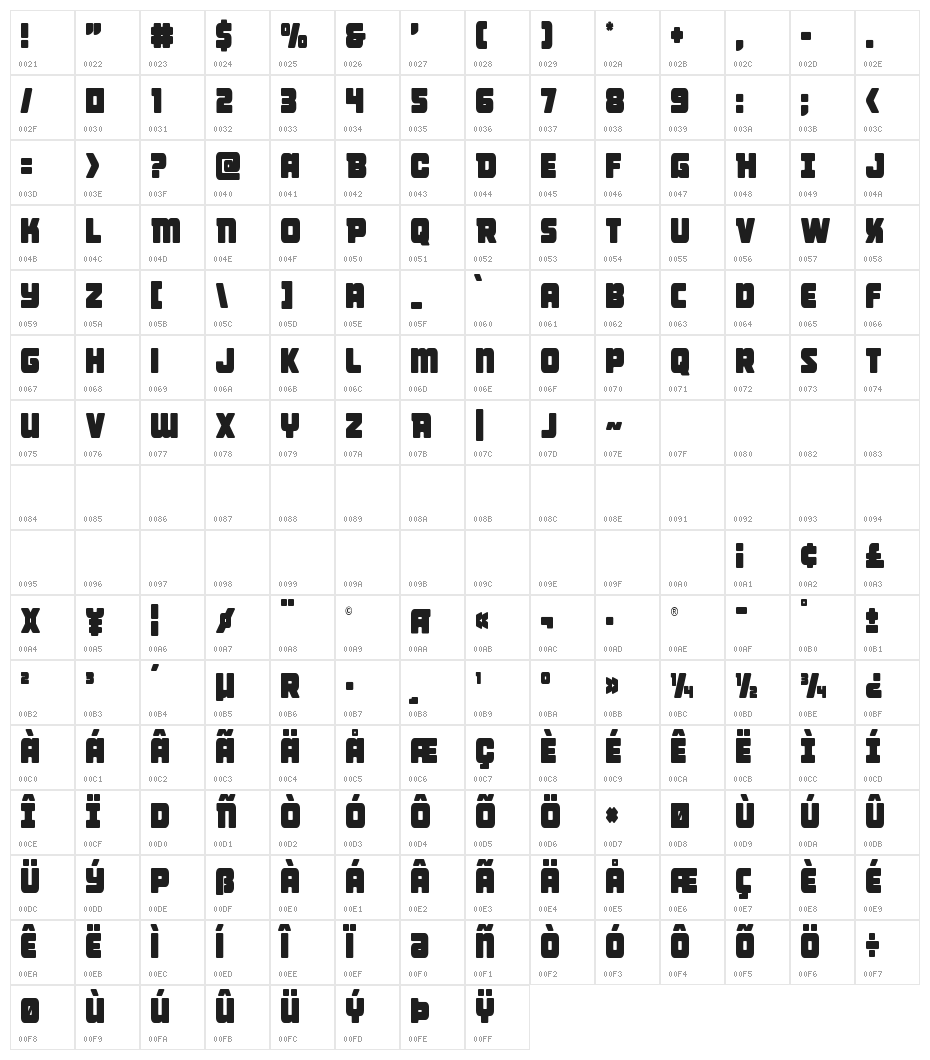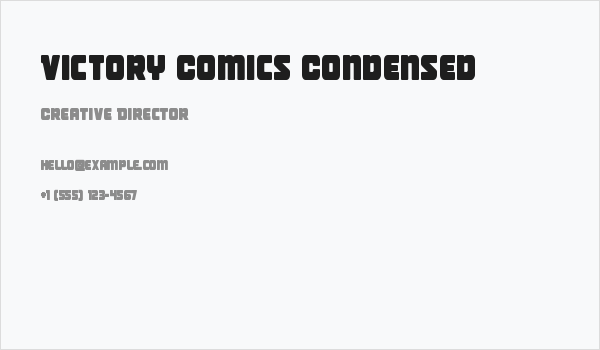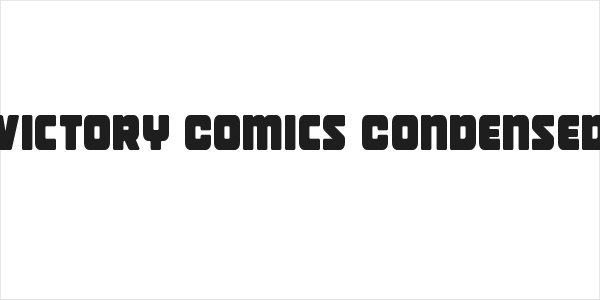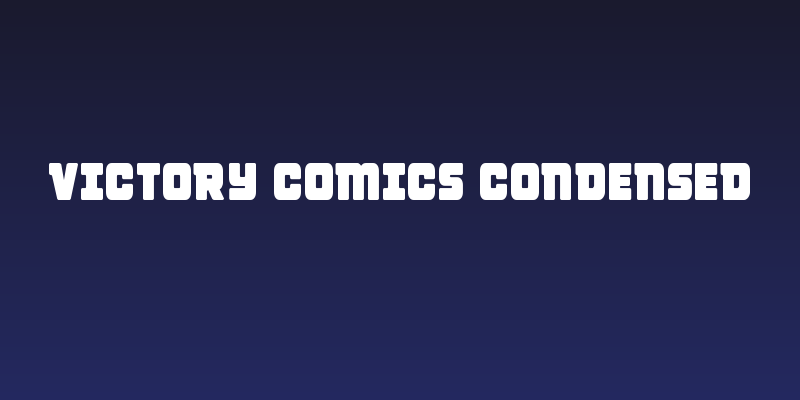
Victory Comics Condensed Font
Victory Comics Condensed Description
This font features a bold and impactful style with thick, uniform strokes that create a strong visual presence. The characters are condensed, maximizing space efficiency while maintaining legibility. The design is reminiscent of comic book lettering, with a playful yet assertive appearance. The uppercase and lowercase letters share a consistent height, contributing to a cohesive look. The numerals and special characters are equally bold, ensuring they stand out in any context. This font's unique style makes it ideal for attention-grabbing headlines and creative projects.
Proposed ProjectsIdeal for comic book titles, posters, advertising, and any project requiring a bold, eye-catching font.